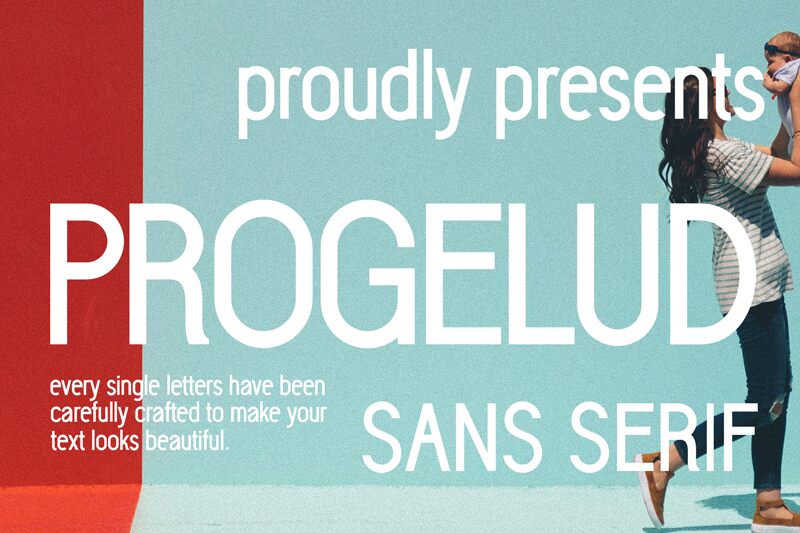
Progelud Line stands as a testament to the refined elegance that Bearytype brings to the Progelud font family. Its semi-light weight and condensed width offer a sleek, streamlined aesthetic that pairs beautifully with its sans-serif style, making it an impeccable choice for designers who value both form and function. Crafted with meticulous attention to detail, each character in Progelud Line is designed to ensure your text not only reads well but looks stunning in any setting.
This font's versatility shines across a spectrum of creative projects, from sophisticated branding materials and engaging digital content to eye-catching print designs. With its PUA-encoded features, accessing all of the glyphs becomes effortless, unlocking a world of design possibilities. Whether you're aiming for minimalist charm or contemporary flair, Progelud Line adapts seamlessly to your vision, elevating your work with its attractive and natural presence.
Progelud Line